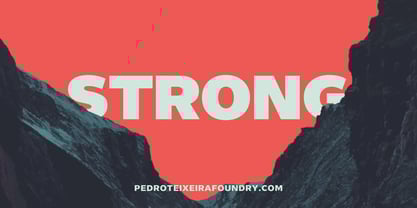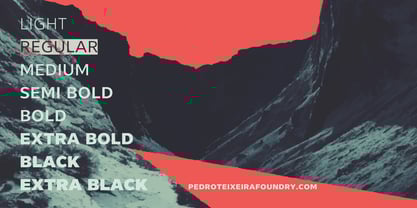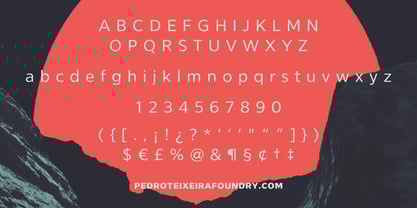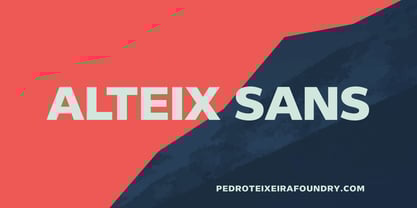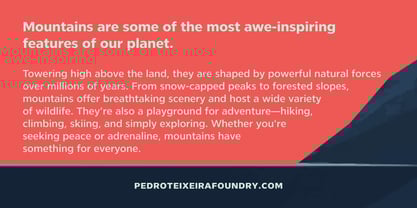
Alteix Sans
by Pedro Teixeira
The Alteix Sans Font Family was designed by Pedro Teixeira and published by Pedro Teixeira. Alteix Sans contains 9 styles and family package options. More about this family
Looking for a clean, modern font that feels professional and creative? Alteix sans-serif font family is designed to bring personality and polish to any project—whether you're building a sleek tech website, designing a bold corporate logo, or laying out a futuristic sci-fi book cover. With a smooth, balanced aesthetic, it’s perfect for everything from business cards and posters to UI design and coding interfaces. Its friendly yet premium look makes it a go-to choice for startups, creatives, and businesses who want to stand out with style and clarity. Whether you're working on branding, headlines, or digital products, this typeface adapts effortlessly to modern, high-impact design needs.